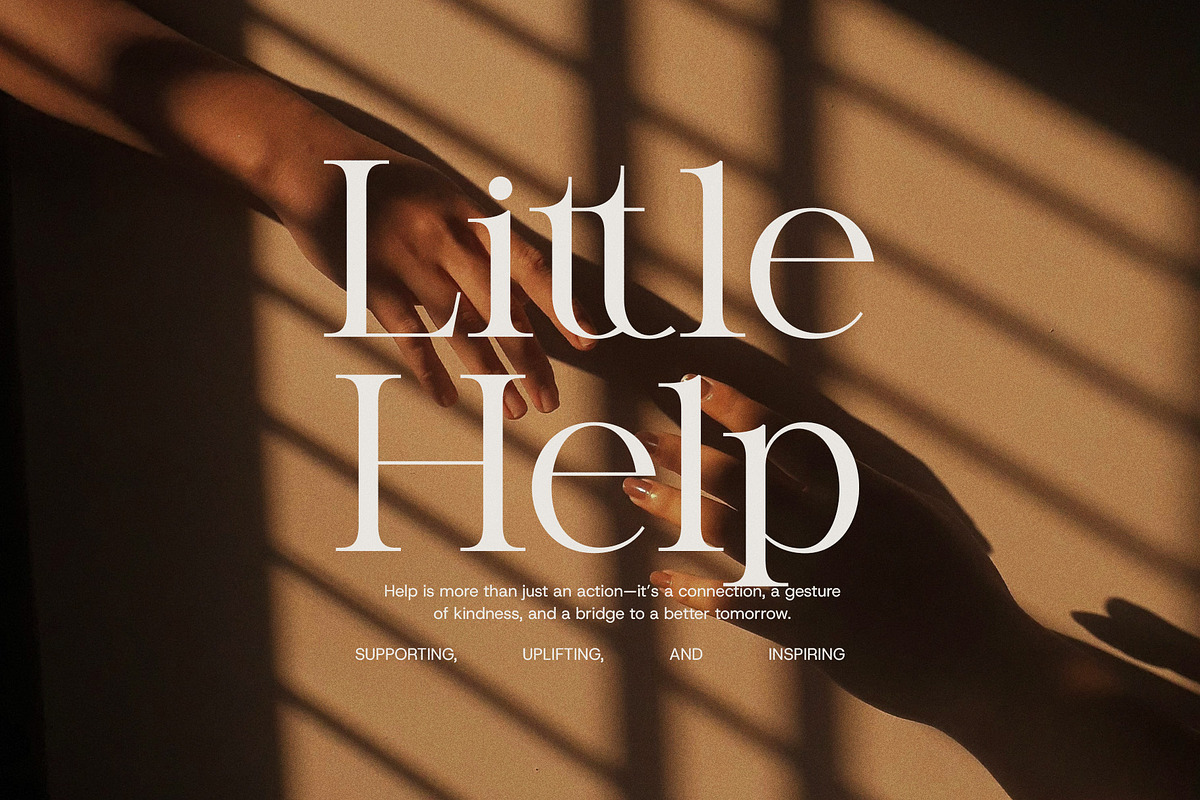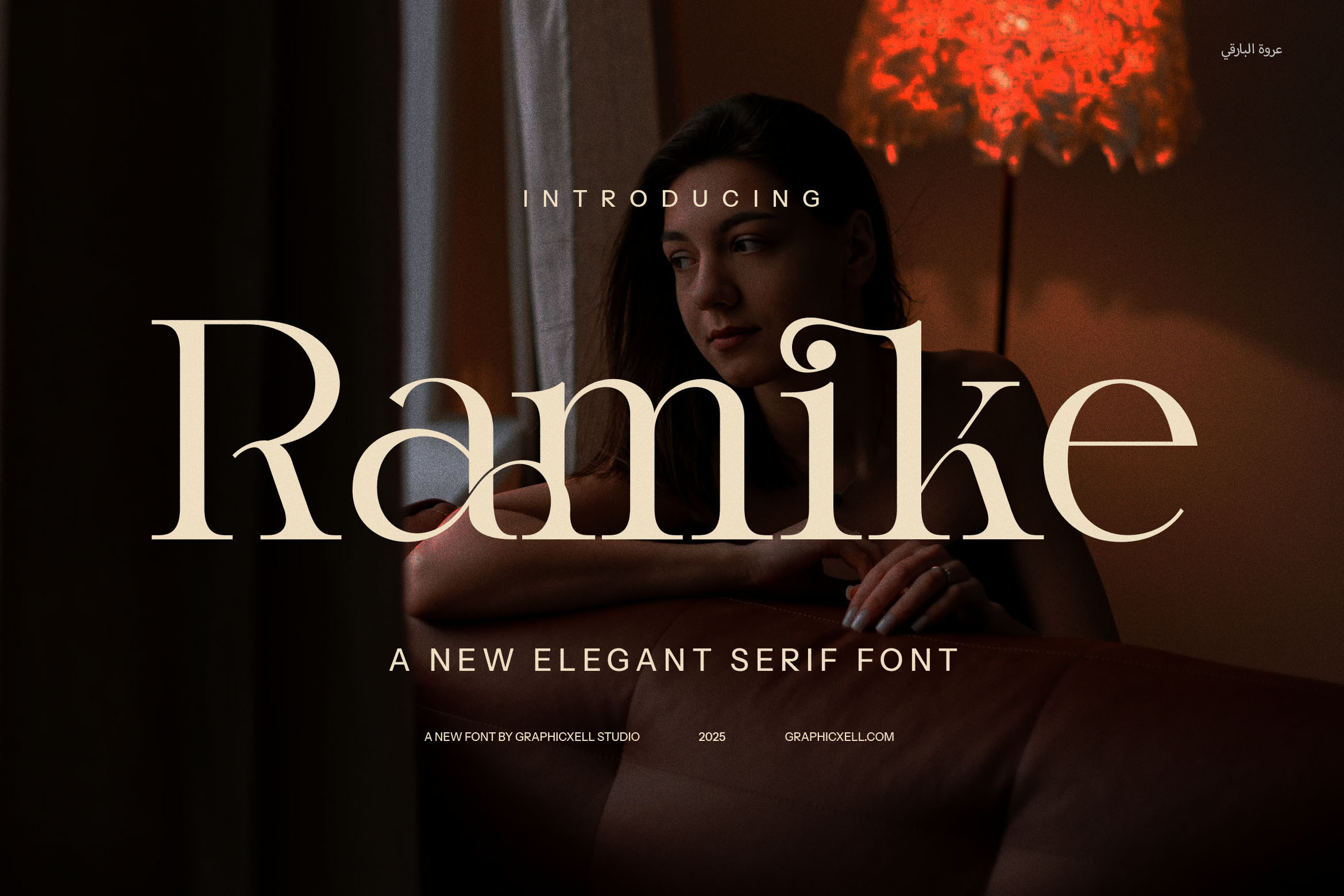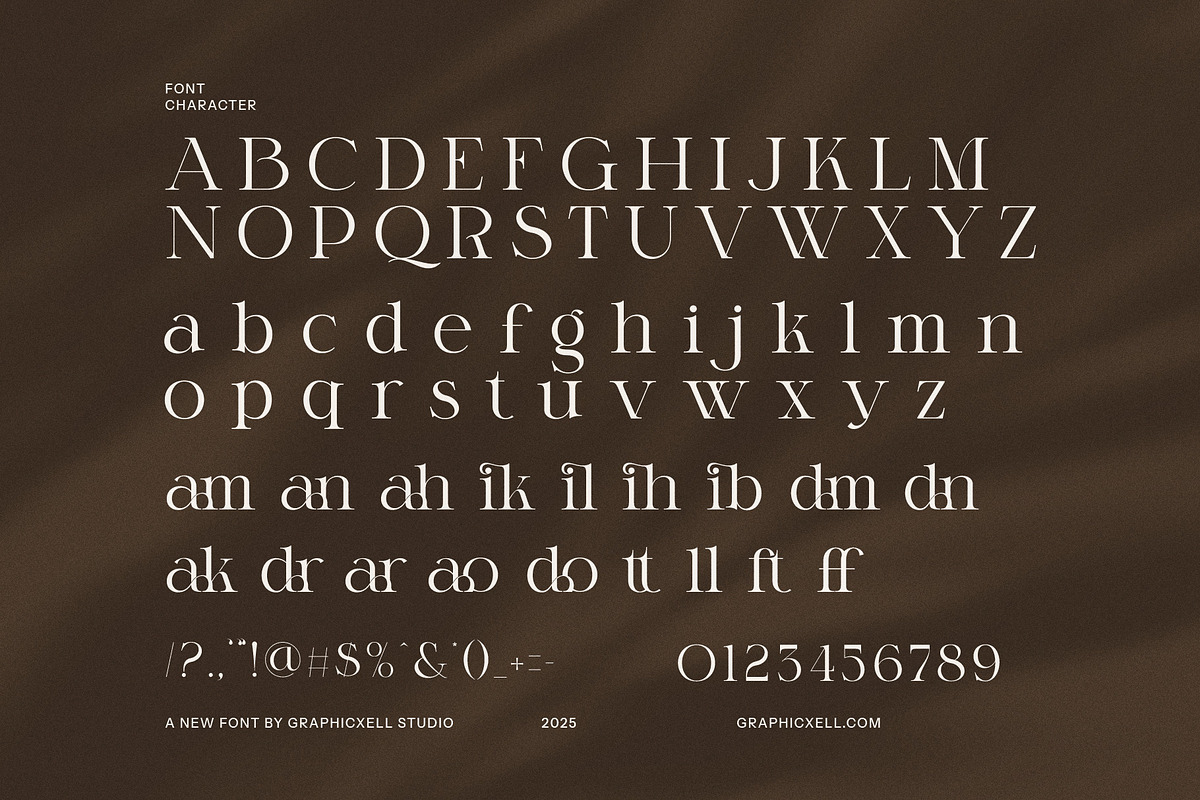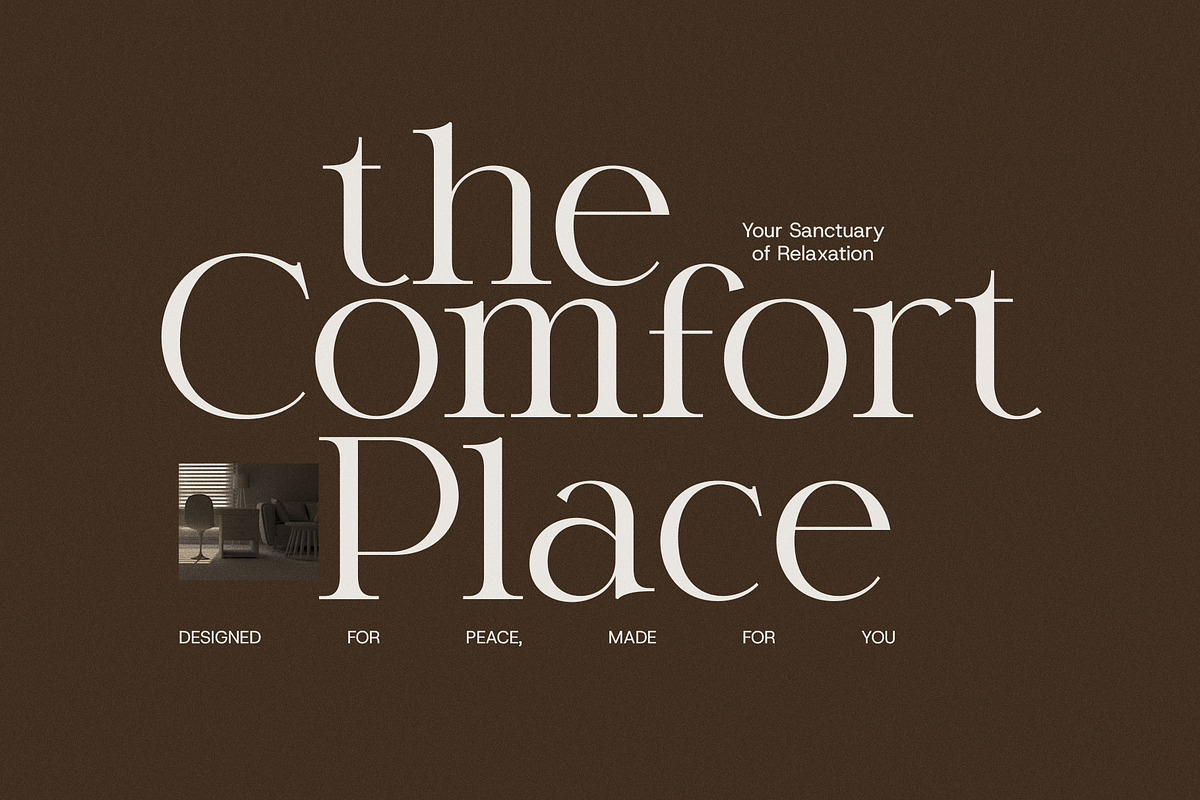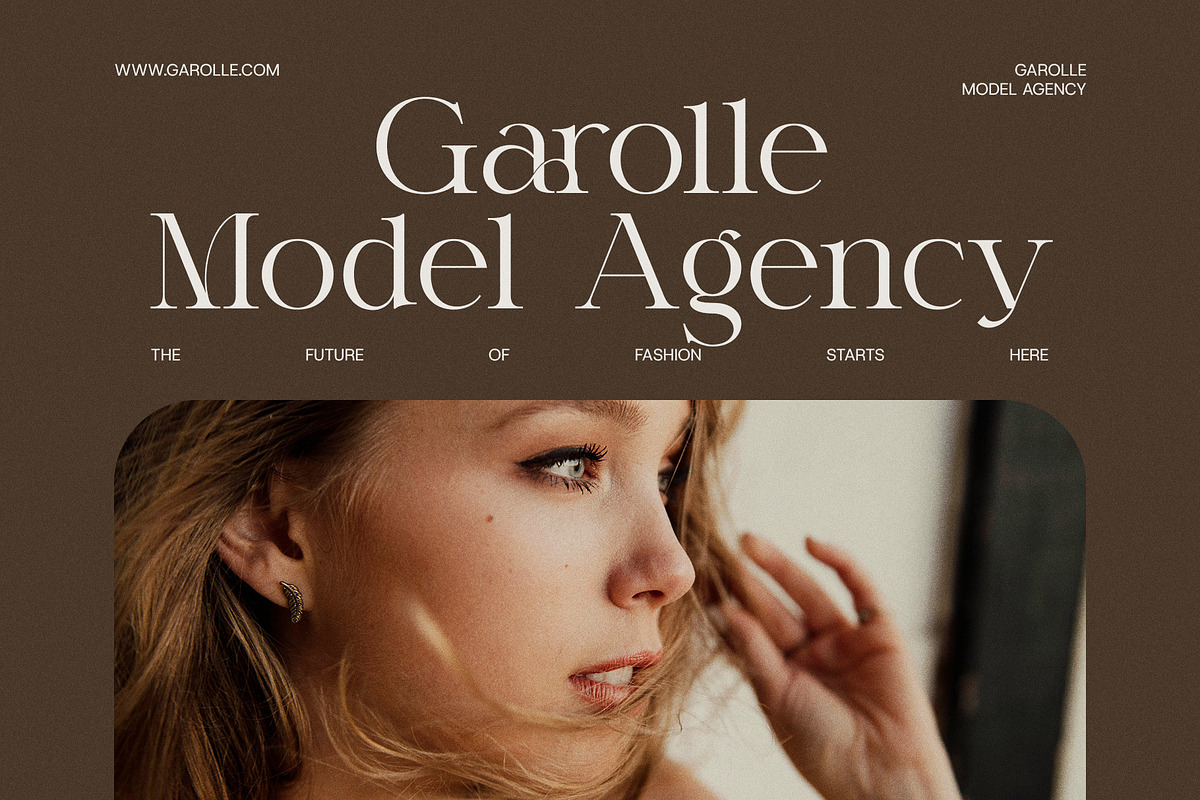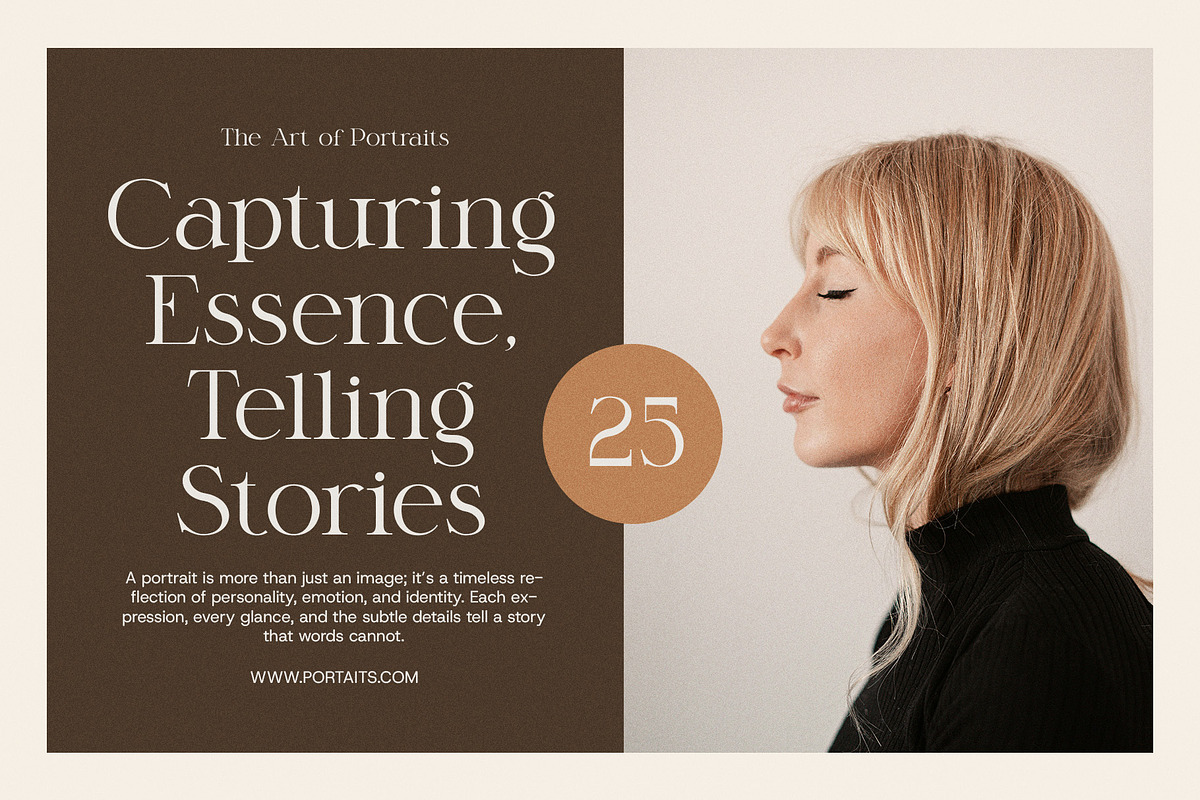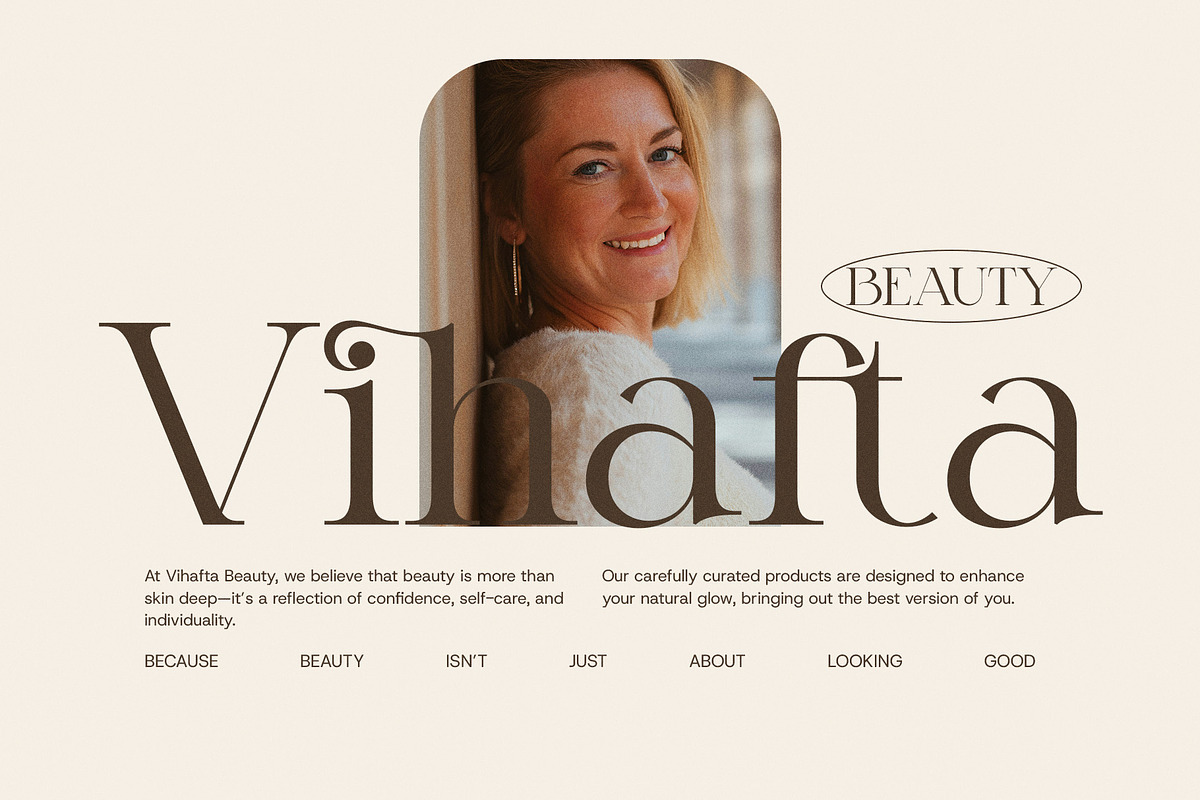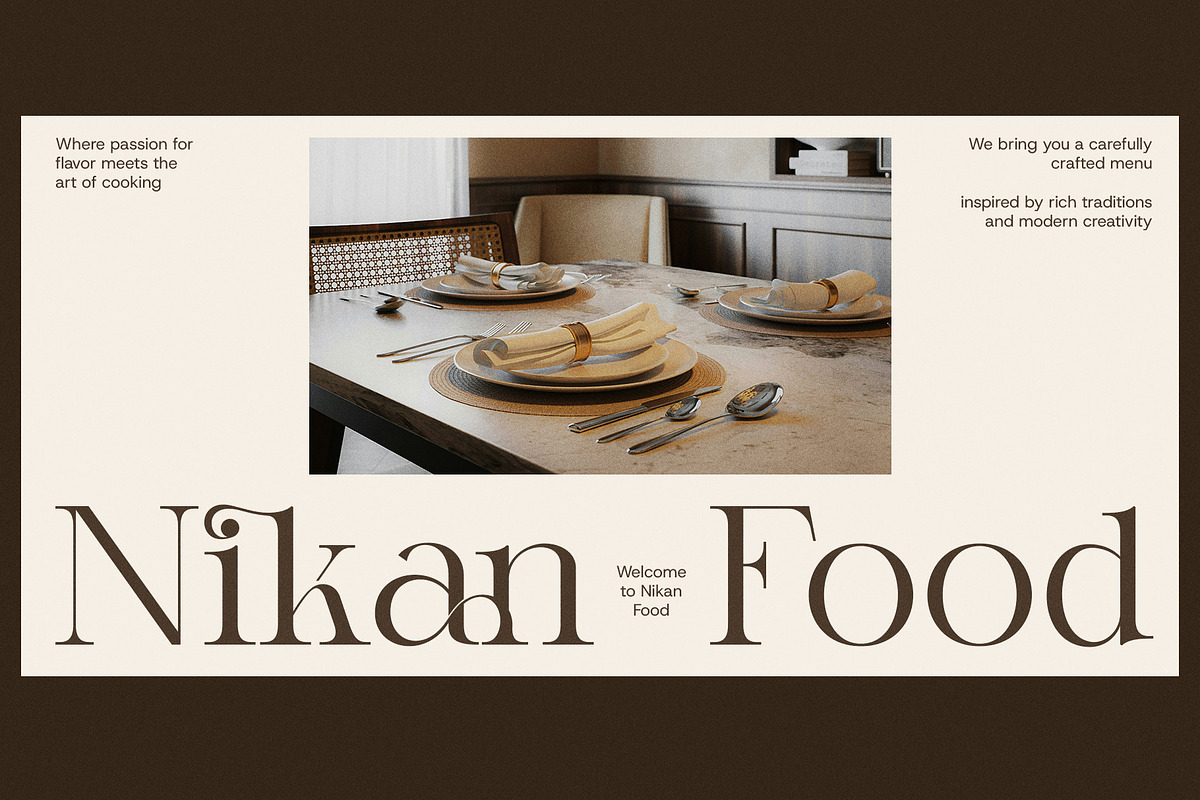
Ramike Modern Serif Font
Ramike Modern Serif Font is a refined and sophisticated typeface designed to make a lasting impression. Combining timeless serif features with a modern twist, Ramike brings elegance and style to any project. Its clean lines, delicate curves, and unique ligatures set it apart from other serif fonts, making it the perfect choice for upscale branding, logos, websites, and editorial designs.
This versatile font boasts beautiful alternate forms and ligatures that add a touch of creativity and personality to your typography. Whether you’re designing a luxurious logo, crafting an eye-catching advertisement, or building a stylish website, Ramike's elegant structure ensures your designs will stand out. Its modern yet classic appeal makes it ideal for a variety of industries, from high-end boutiques to food packaging, product labels, and magazines.
Ramike Modern Serif Font is designed to perform seamlessly in both digital and print formats. Its sophisticated yet highly readable letterforms make it a great choice for both headlines and body text, providing flexibility across different media. The font’s exquisite details create a perfect balance between form and function, adding refinement without overwhelming the design.
With Ramike, your creative projects will radiate elegance, modernity, and professionalism. From product branding to marketing materials, this font brings an elevated aesthetic that is both timeless and fresh. Let Ramike Modern Serif Font help you create designs that speak with style and sophistication.